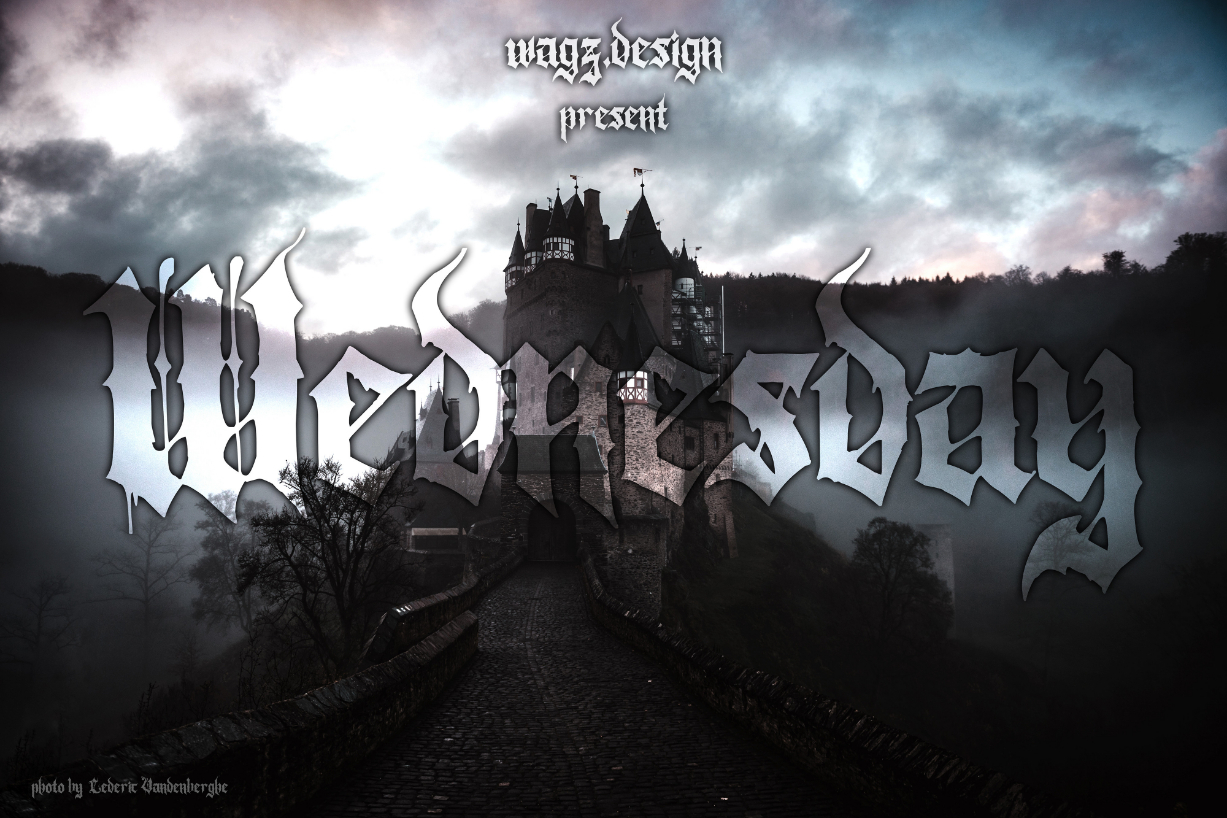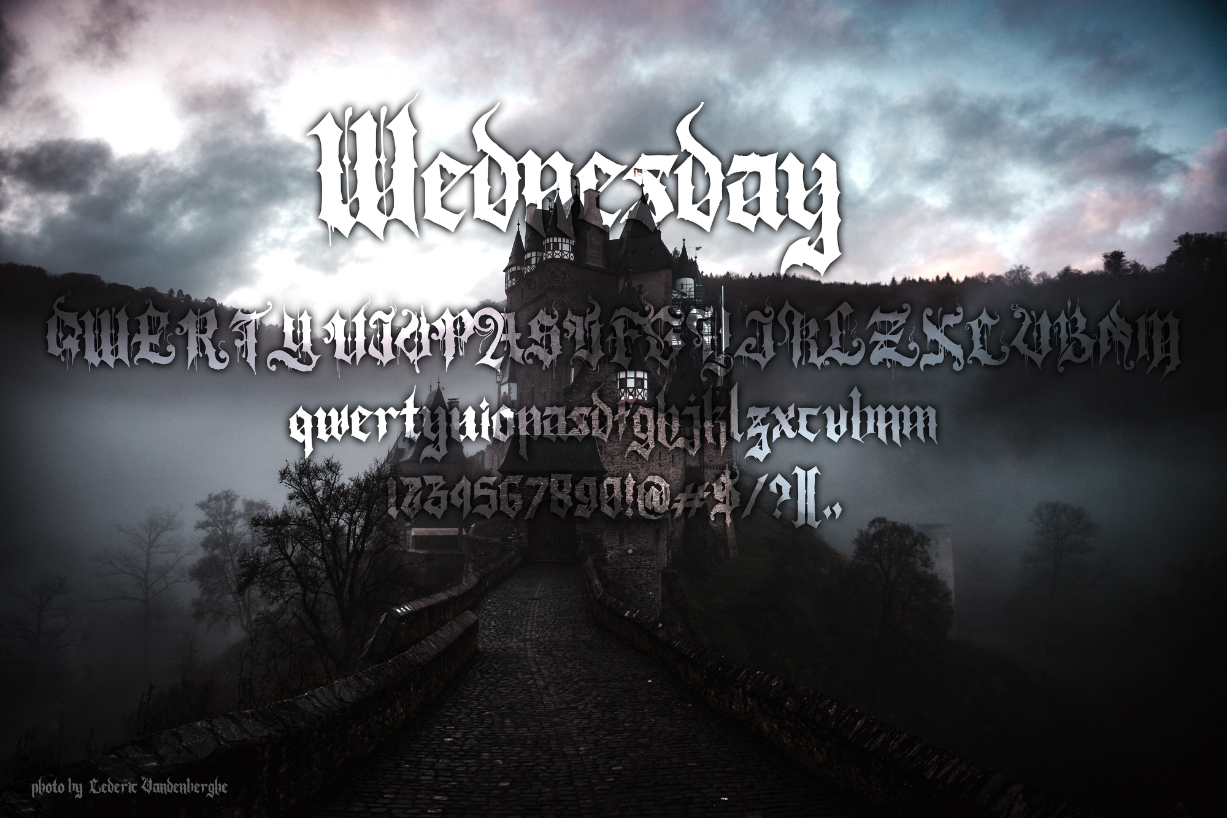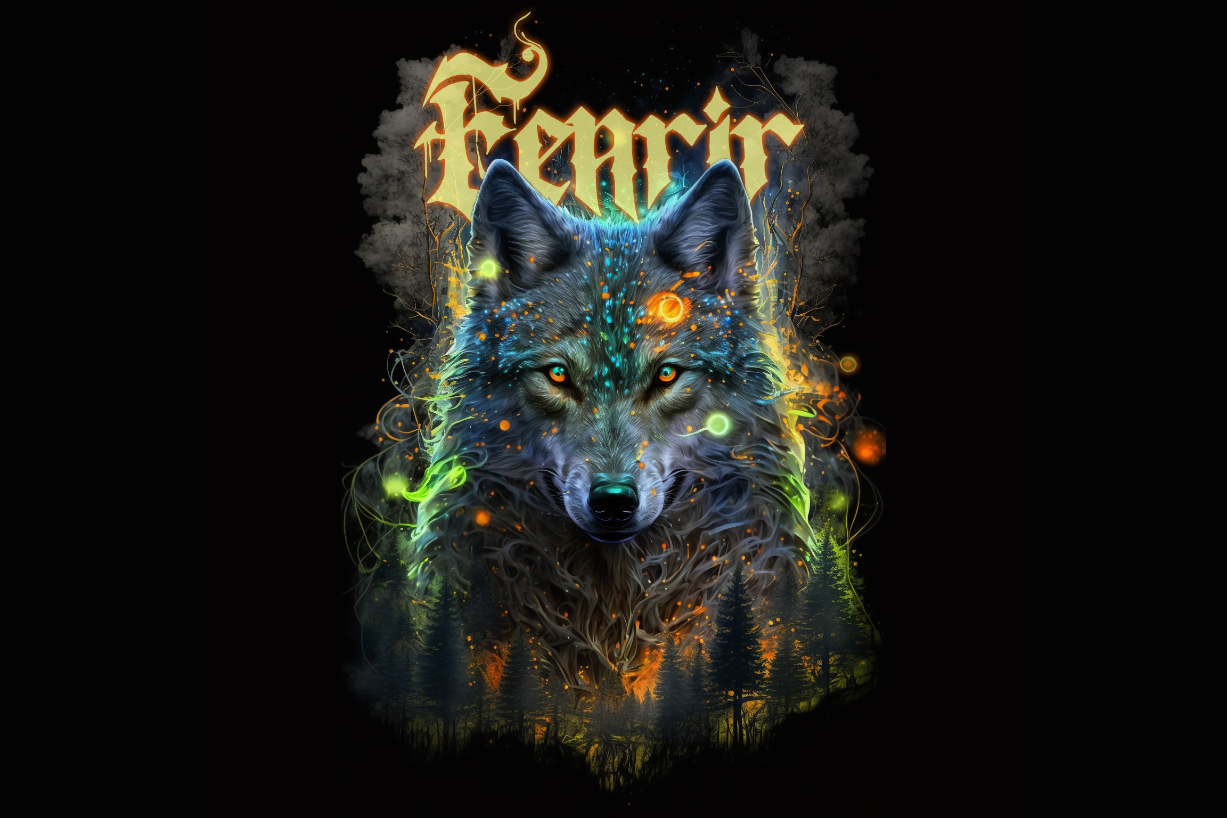
Wednesday Font
About Wednesday Font
Wednesday is a blackletter font that embodies the power and grandeur of medieval times, with its bold, angular letterforms and intricate details. The sharp serifs and elaborate flourishes evoke a sense of strength and authority, making it perfect for projects that require a touch of historical or gothic flair.